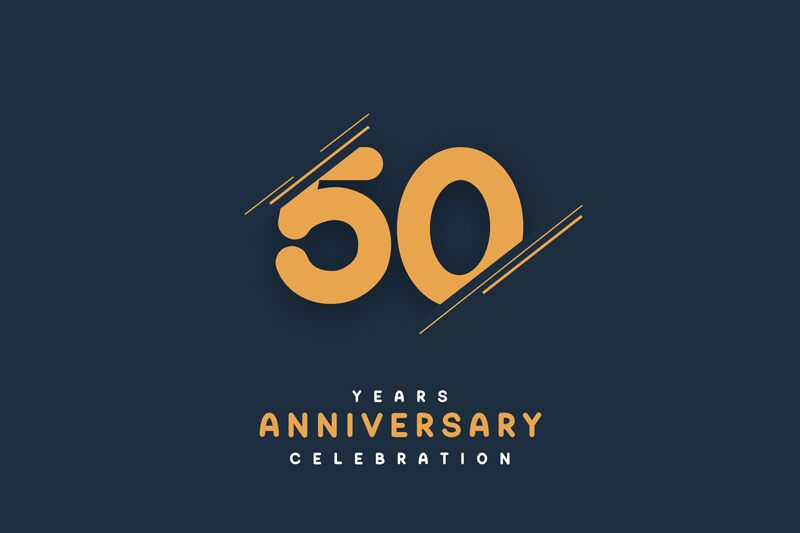
Lolla Sans font by Tigadestd is a free sans-serif font with a modern and clean design. Its rounded and streamlined appearance makes it approachable and contemporary, capturing an aesthetic that is both friendly and accessible. Whether you're working on branding materials, modern event promotions, or technology-related designs, this font is designed to enhance your project’s visual appeal.
Ideal for a wide range of applications, Lolla Sans can be used in branding, product packaging, posters, book covers, brochures, business cards, menus, blog headers, and more. Its clean and approachable style ensures your message is communicated effectively.